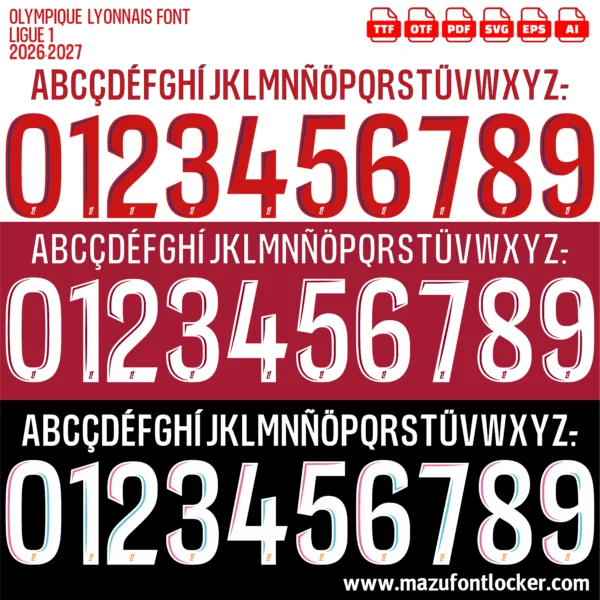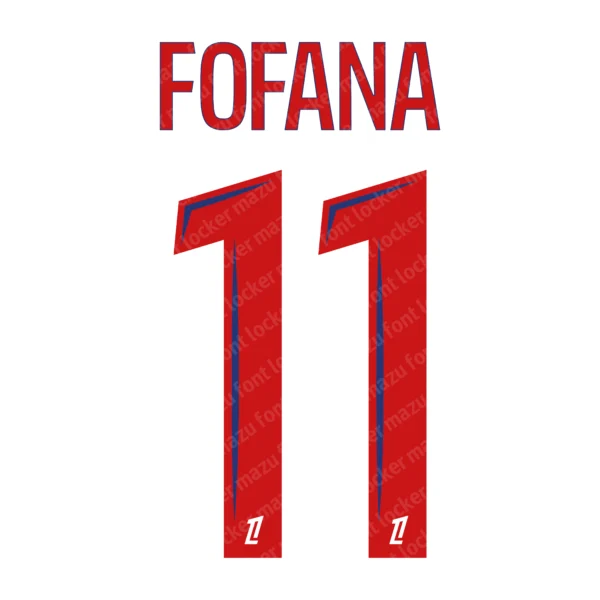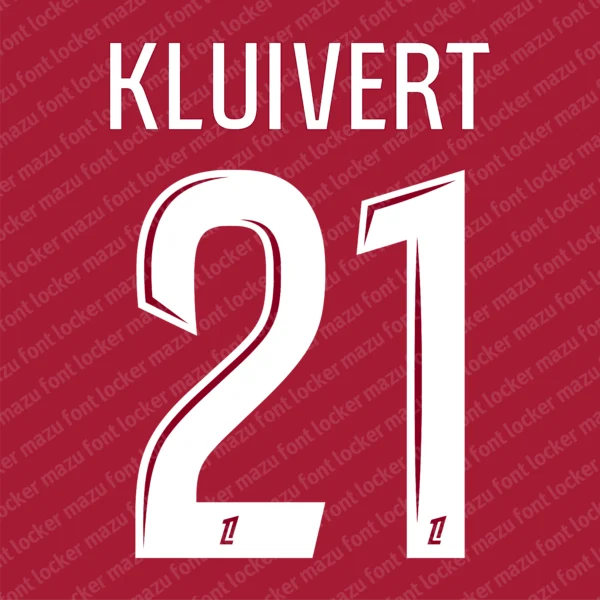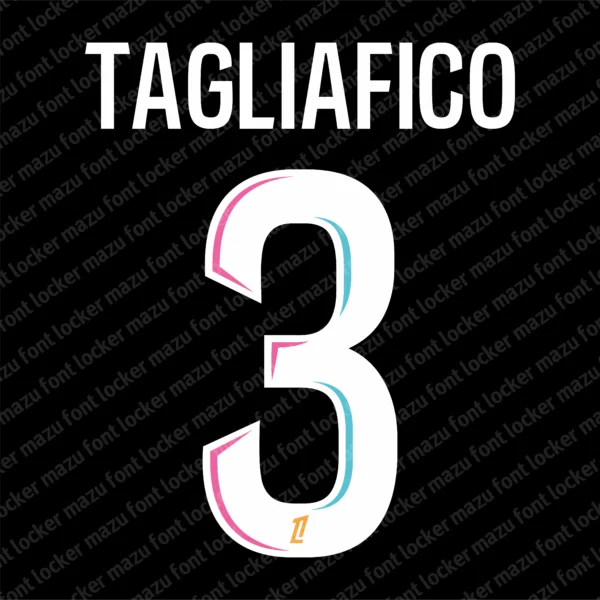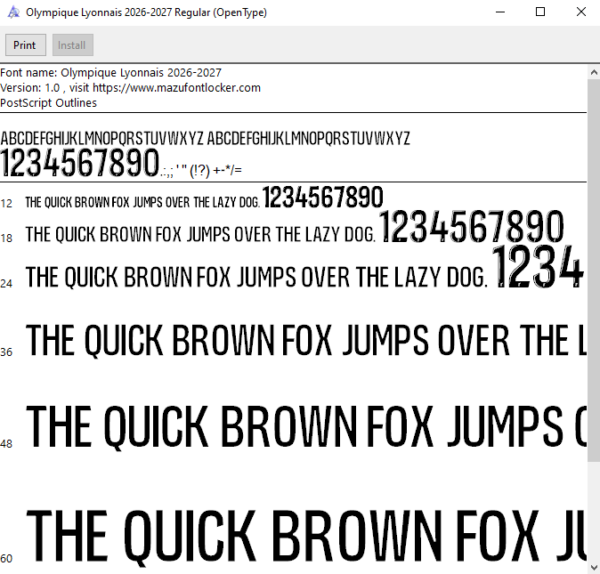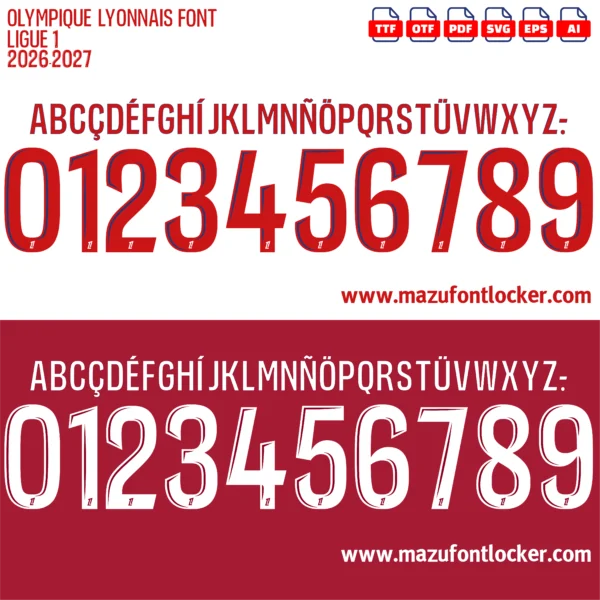
Olympique Lyonnais 2026-2027 Font Vector – Epic Les Gones Masterpiece
This font captures the bold, fearless, electric, and ultra-premium lettering that perfectly embodies Olympique Lyonnais’ iconic French passion fused with the ruthless, fiery, and unstoppable spirit of Les Gones — delivering unmatched intensity, raw emotion, elite craftsmanship, and pure Red-Blue fire for premium jersey mockups, epic football designs, spectacular sports visuals, standout fan creations, and professional branding projects.
Olympique Lyonnais 2026-2027 Font Vector – Authentic Les Gones Typeface
The Olympique Lyonnais 2026-2027 Font Vector is a premium typeface that accurately recreates the official match lettering worn by Olympique Lyonnais during their projected dominant 2026-2027 season. This high-quality vector font kit captures the bold, elegant, and distinctive typography that reflects the pride, attacking flair, and rich football heritage of Les Gones.
Why Choose Olympique Lyonnais 2026-2027 Font Vector
This font stands out because of its sharp vector precision and strong club identity. Every letter and number is crafted to match the exact style used on the players’ shirts during the anticipated 2026-2027 campaign. Whether you are creating professional kit templates or celebrating Olympique Lyonnais’ golden era, the Olympique Lyonnais 2026-2027 Font Vector delivers an authentic match-ready appearance.
The letterforms in the Olympique Lyonnais 2026-2027 Font Vector are bold, clean, and highly readable. The characters feature balanced proportions and sharp detailing that create a professional appearance on both home and away jerseys while maintaining the classic yet modern football aesthetic of the 2026-2027 era.
The numerals feature strong geometric construction with excellent visibility and balance. Every number is carefully vectorized to ensure flawless scaling across digital graphics, print projects, and jersey applications.
- Full uppercase A–Z and numbers 0–9 in authentic Olympique Lyonnais 2026-2027 style
- Multilingual Latin character support including diacritics
- Includes authentic styling inspired by official 2026-2027 season match shirts
Olympique Lyonnais 2026-2027 Season
The 2026-2027 season is set to be one of the most memorable in Olympique Lyonnais’ history. Les Gones delivered outstanding performances in Ligue 1 and European competitions, showcasing brilliant attacking football, tactical discipline, and the never-say-die spirit that defines this historic club.
A mix of world-class stars and dedicated academy talents helped Olympique Lyonnais secure silverware and create lasting memories for fans across the globe. The campaign further strengthened the club’s reputation as a major force in French and European football.